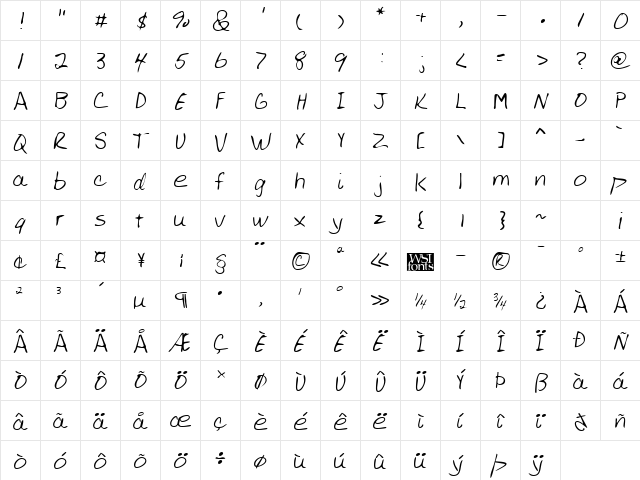
AllensHand Regular Font Preview
AllensHand Regular
AllensHand Regular Font Details
Design Context for AllensHand Typeface
AllensHand flows with the natural rhythm of handwritten lettering, making it ideal for designs that call for warmth and personal expression.
Font Pairing: Combine AllensHand with a simple geometric sans for maximum contrast — the tension between flowing curves and clean structure is a classic typographic pairing.
Pro Tip: Pair AllensHand with a clean sans-serif for supporting text. The contrast between fluid script and geometric structure creates an elegant typographic hierarchy.